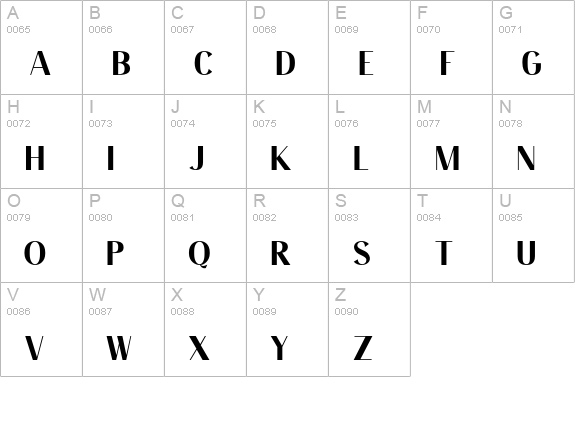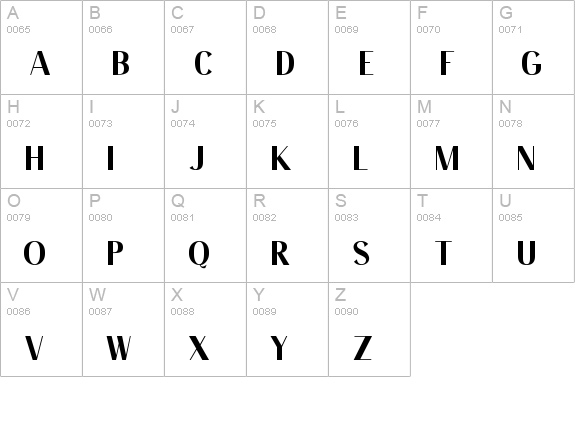
Durak Font Details
Durak is a sleek and modern font that exudes sophistication and elegance. With its clean lines and contemporary design, Durak is the perfect choice for any creative project or branding endeavor. This versatile font is ideal for use in logos, branding materials, websites, and more. The best part is that Durak is completely free to download at FontsMarket.com, making it accessible to all designers and creatives looking to elevate their work with a high-quality typeface. Don't miss out on the opportunity to add Durak to your font collection and take your designs to the next level.